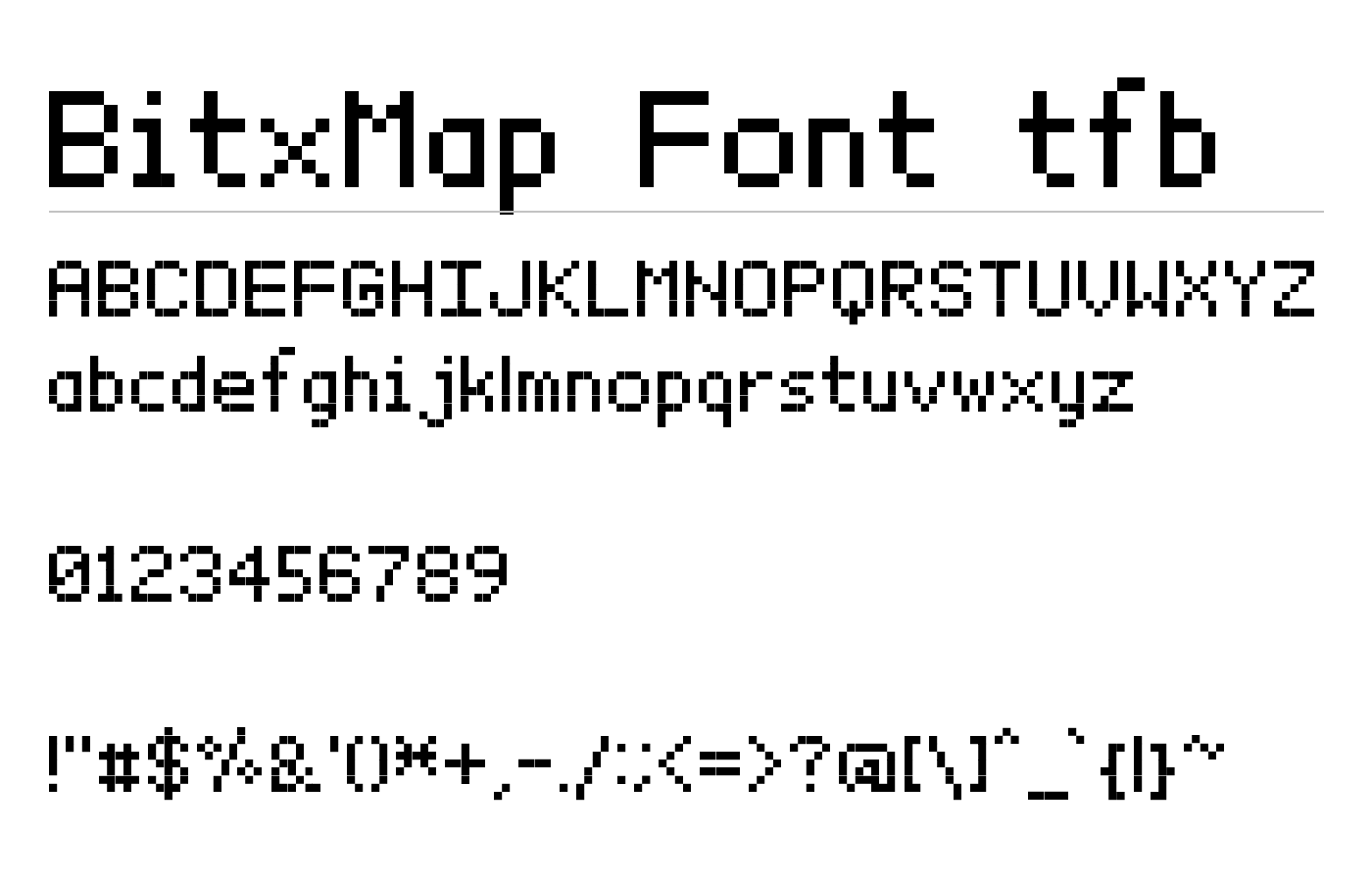
BitxMap Font tfb is a pixelated, monospaced sans serif typeface that captures a retro digital aesthetic with its blocky, square letterforms and consistent stroke weight. Its simple and clean design, featuring a uniform x-height and low contrast, makes it highly readable at small sizes and perfect for tech-inspired or nostalgic projects. This font works especially well for coding interfaces, video game graphics, and digital art where clarity and a vintage computer feel are desired.